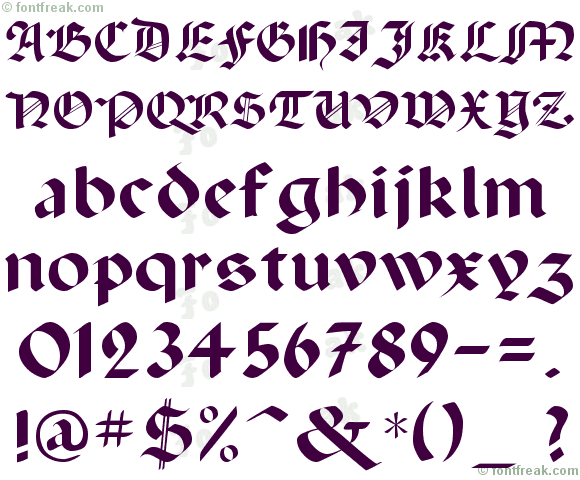
Paganini Regular
About Paganini
The Paganini font by A. Mendoza is a stunning display typeface that captivates with its elegant, serif styling. This font features a unique blend of modernity and classic sophistication, showcasing a refined stroke weight that balances boldness with grace. The contrast between thick and thin strokes adds depth, while its well-defined spacing ensures legibility, making it an ideal choice for a variety of design projects. Decorative elements, such as subtle flourishes at the terminals, enhance its artistic character, giving it a distinctive flair without overwhelming the text.
Paganini is particularly well-suited for use in wedding invitations, where its elegant aesthetic can convey romance and sophistication. Additionally, it shines on movie posters, capturing attention with its dramatic presence. Restaurant menus will benefit from its stylish appeal, inviting diners to explore the culinary offerings. Content creators looking to enhance their branding materials will find Paganini an excellent choice for logos, business cards, and promotional graphics, as it communicates a sense of quality and professionalism.
What sets the Paganini font apart is its unique ability to blend elegance with versatility. Whether you're crafting a formal invitation or an eye-catching advertisement, this font offers the perfect balance of style and readability. For those interested in enhancing their design arsenal, the Paganini font free download is a valuable addition that promises to elevate any project with its distinctive charm.